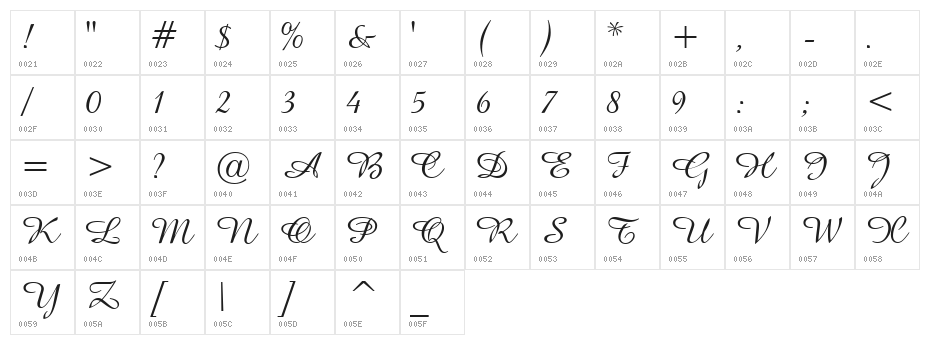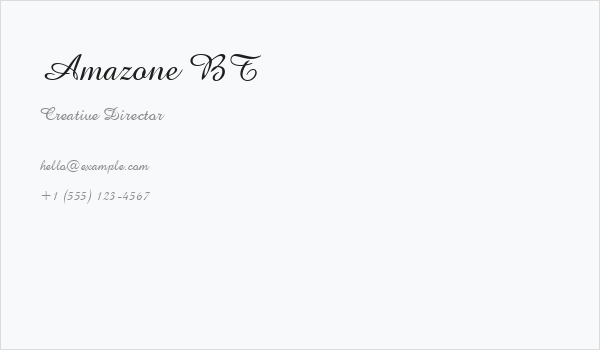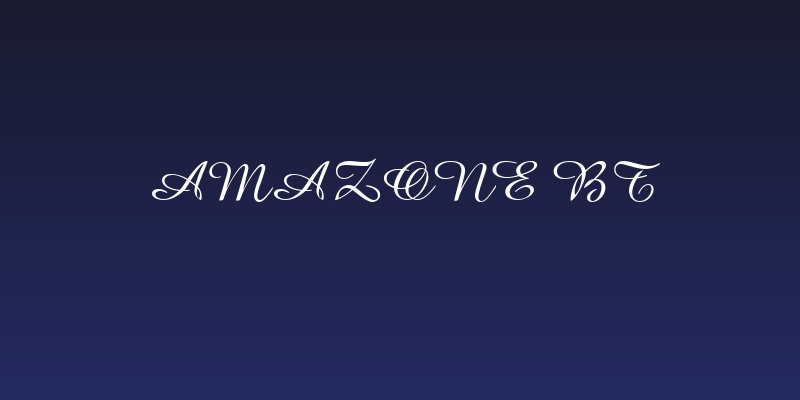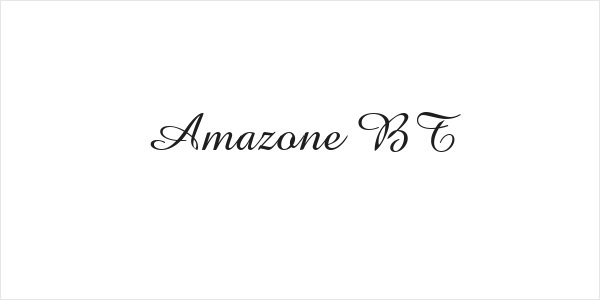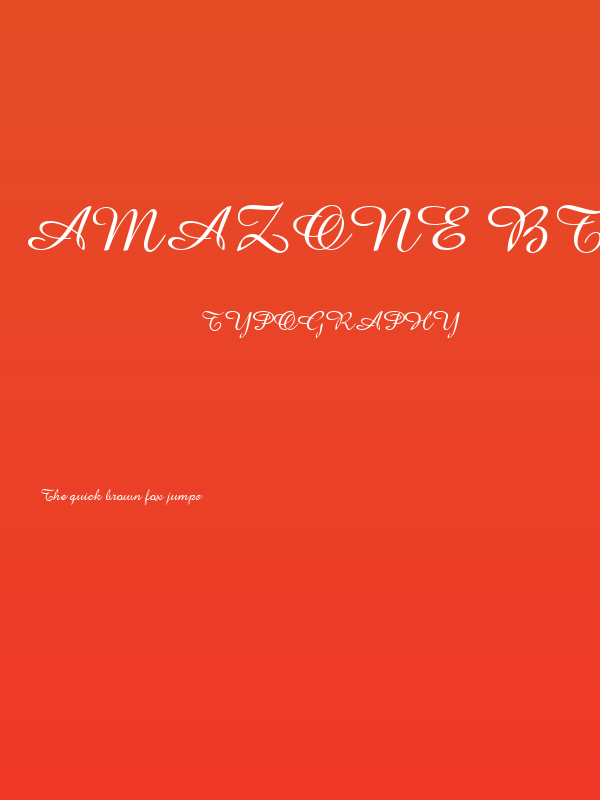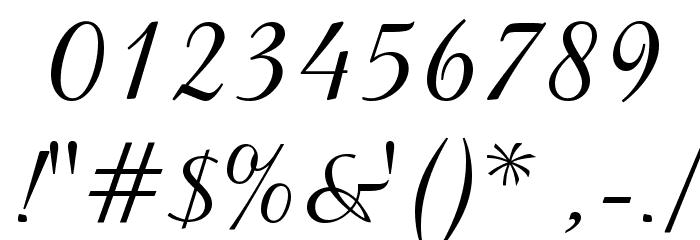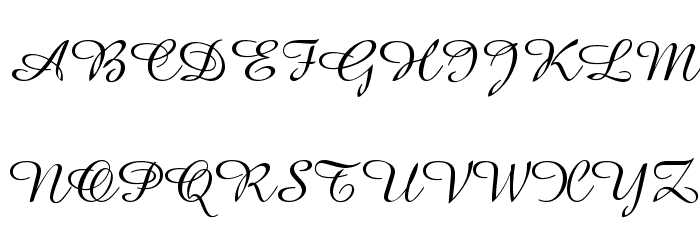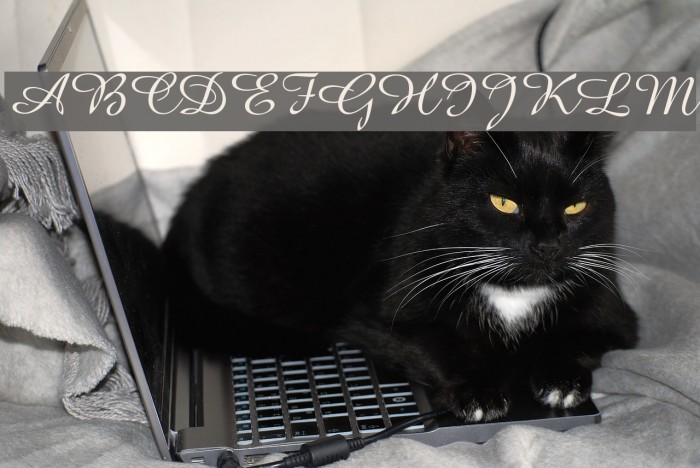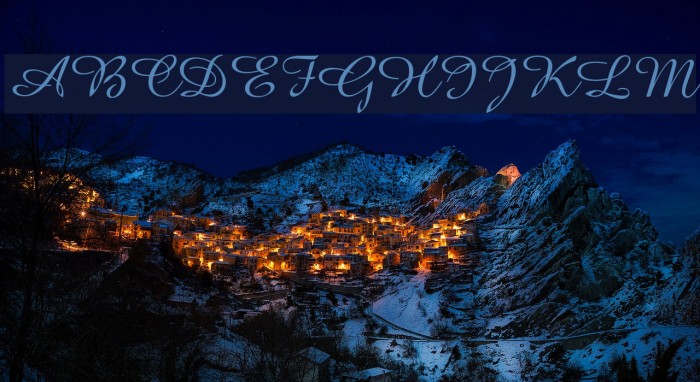
Amazone BT Font
Amazone BT Description
This elegant script font features a flowing, cursive style that exudes sophistication and grace. The uppercase letters are intricately designed with sweeping curves and flourishes, giving them a decorative and ornate appearance. The lowercase letters maintain a consistent slant, enhancing the fluidity and connectedness typical of cursive handwriting. The numerals are styled to match the elegance of the alphabet, with smooth curves and a slight slant. Special characters are thoughtfully integrated, maintaining the overall aesthetic of the font. This font is ideal for projects that require a touch of elegance and formality.
| Use Case | Headlines, Invitations, Branding |
| Proposed Projects | Wedding invitations, formal event programs, elegant branding, and luxury product packaging. |